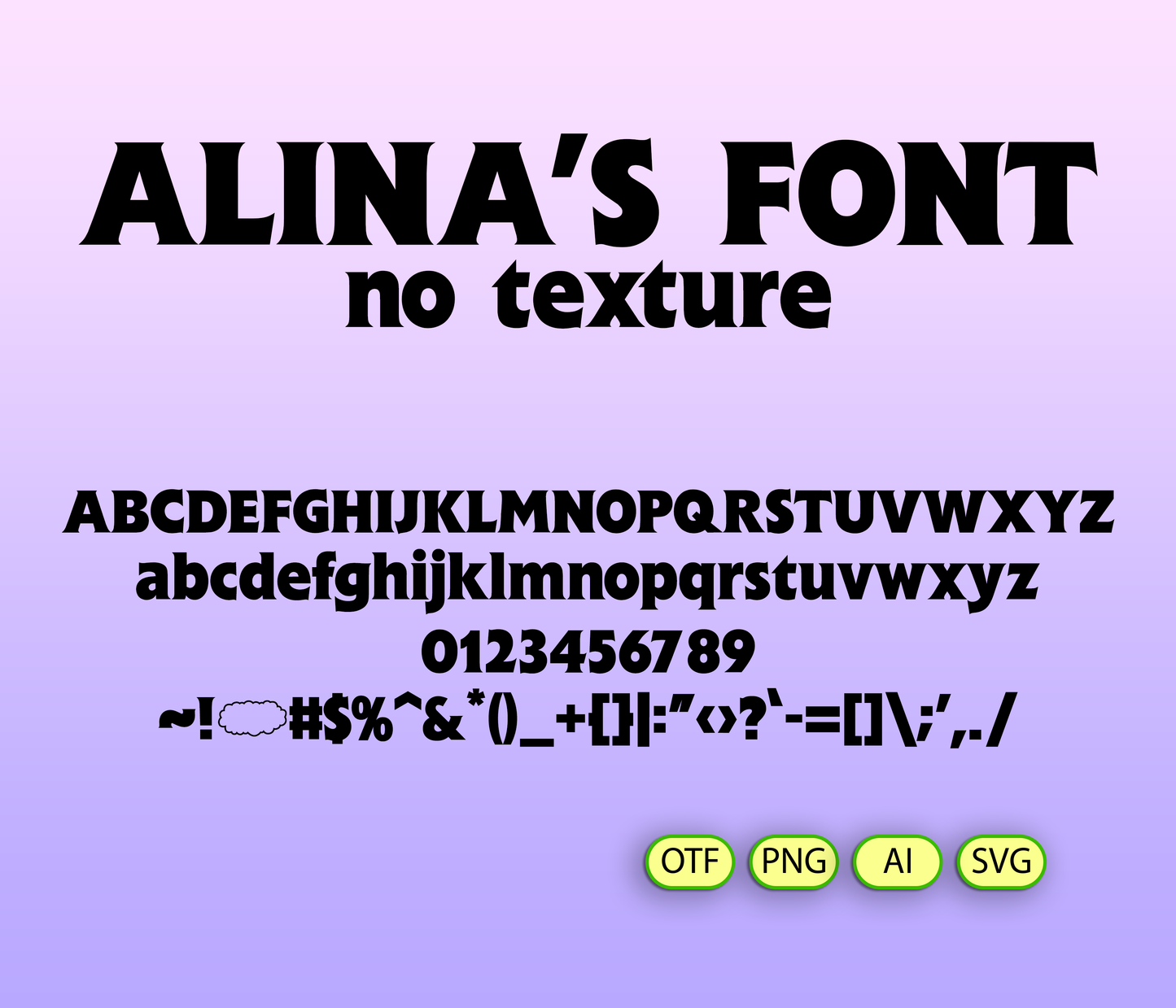
Train Adventures Font
All Aboard with the Train Adventures Font
Step into the delightful world of Train Adventures with our specially designed font, capturing the charm and whimsy of a beloved children's series. Perfect for fans, parents, teachers, event planners, and designers, this font brings the joyful spirit of friendly locomotives to your projects. Whether creating event invitations, themed merchandise, or digital content, our Train Adventures font ensures your projects resonate with the cheerful and adventurous nature of this timeless show.
Our Train Adventures-inspired font features friendly, rounded lines and playful characters reflecting the fun and engaging style of the series. This versatile font is ideal for:
- Event Invitations: Engaging invites for children's parties, playdates, or themed events.
- Merchandise Design: T-shirts, posters, and accessories capturing the essence of Train Adventures.
- Digital Media: Enhance websites, blogs, and social media with vibrant headers and graphics.
- Educational Materials: Presentations, worksheets, and content focused on early learning and development.
- Personal Projects: Add joy to scrapbooking, DIY crafts, or home decor inspired by friendly locomotives.
Our Train Adventures font pays tribute to the beloved series, empowering you to infuse your designs with its joyful and adventurous spirit. Ready to bring a touch of cheerful adventure to your creative projects? This font is your key to unlocking a world of playful and captivating design.